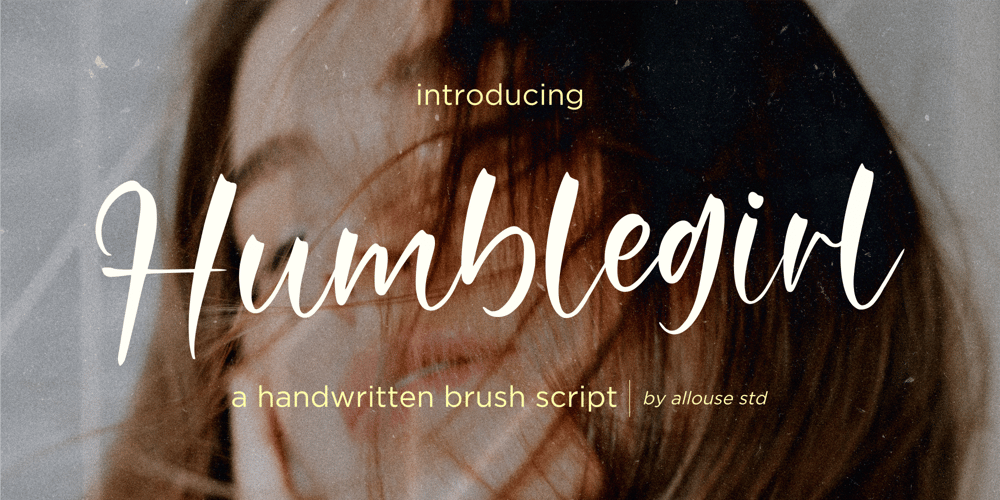
Humblegirl Font Family was designed by Fachrizal Yusuf and published by Allouse Studio. Humblegirl contains 1 styles and family package options. Proudly Presenting, Humblegirl A Modern Handwritten Script.Humblegirl is perfect for any titles, logo, product packaging, branding project, megazine, social media, wedding, or just used to express words above the background.Humblegirl also come with Multi-Lingual Support.Enjoy the font, feel free to comment or feedback, send me PM or email. Thank You!